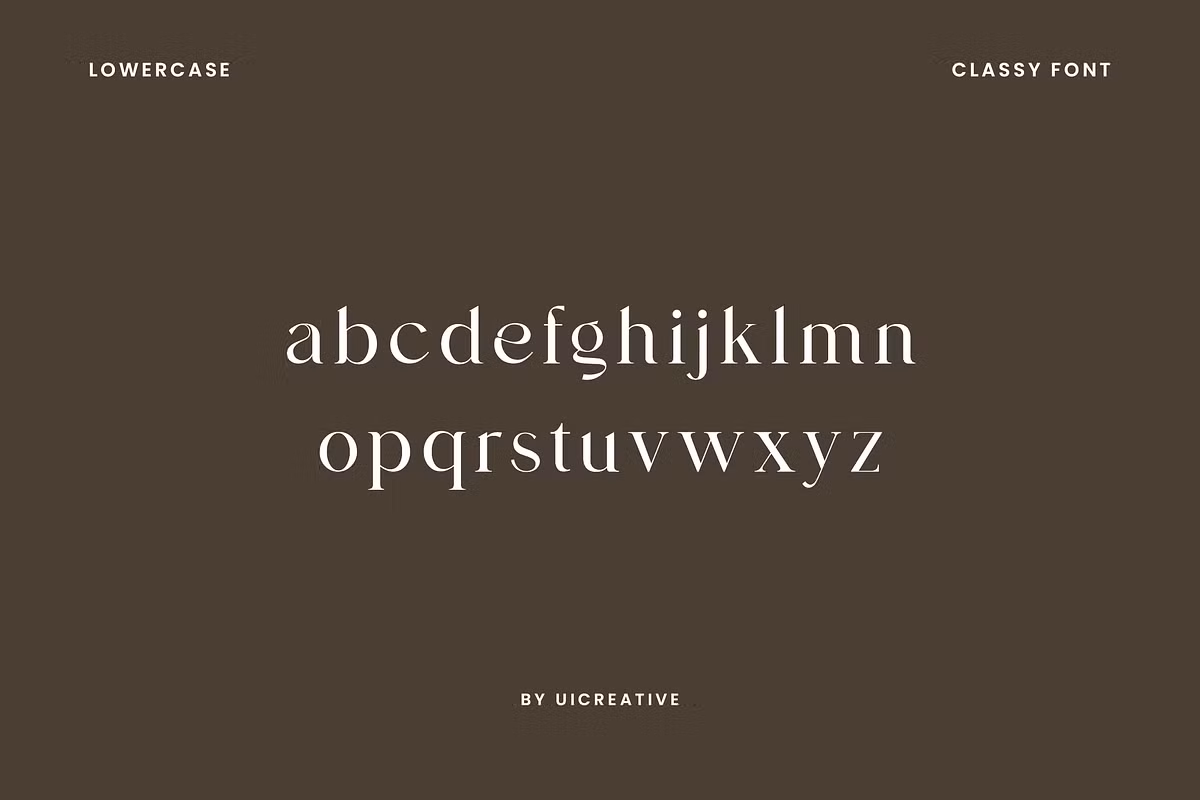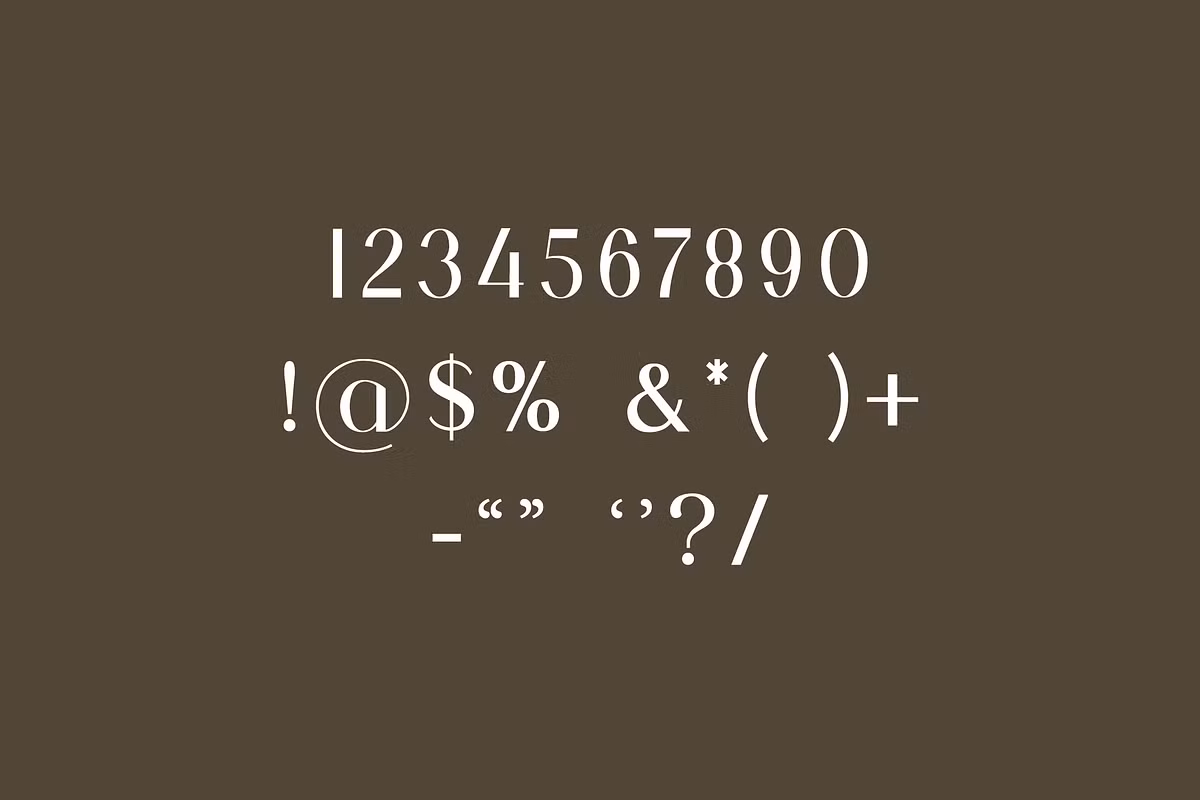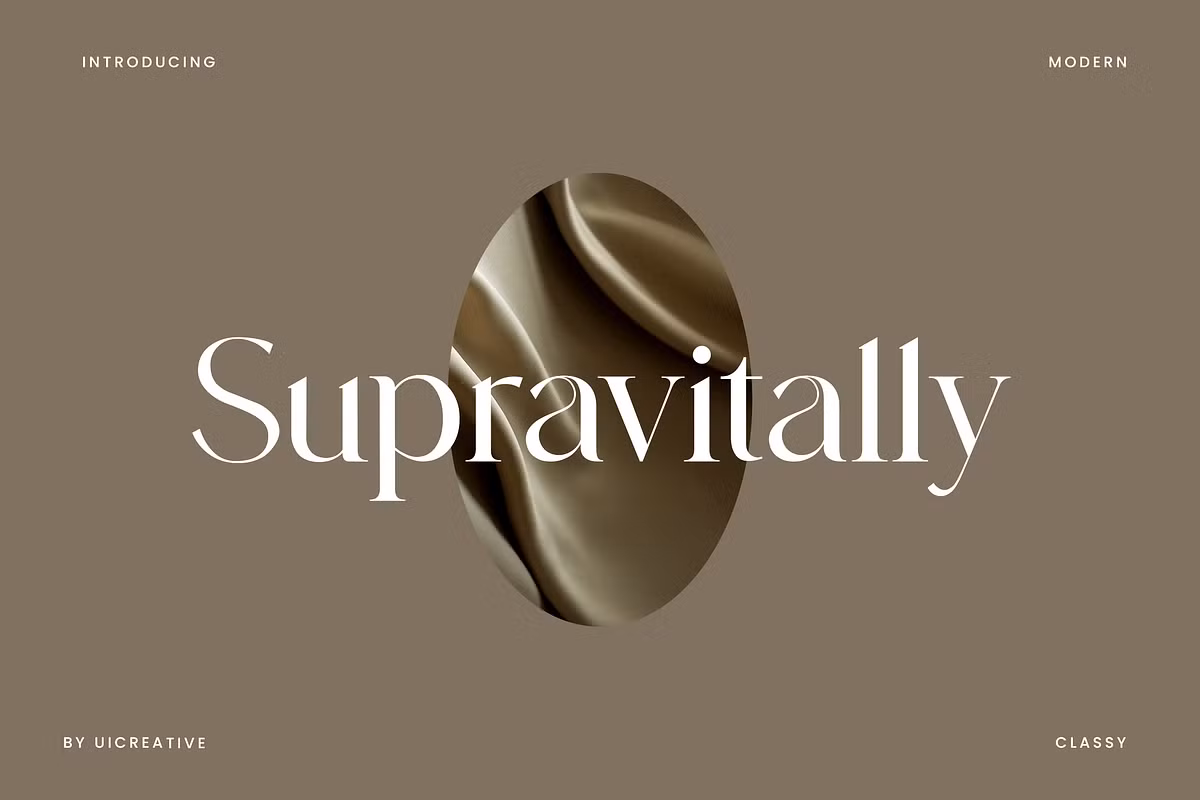
Supravitally Font
Supravitally is a new Modern Serif font perfect for the projects that needs a classy and sleek look that can be used in logos, signatures, wedding invitations and card, quotes, books and magazines covers, web headers, clothing packaging and branding and other related projects.
Supravitally Luxury Serif Font